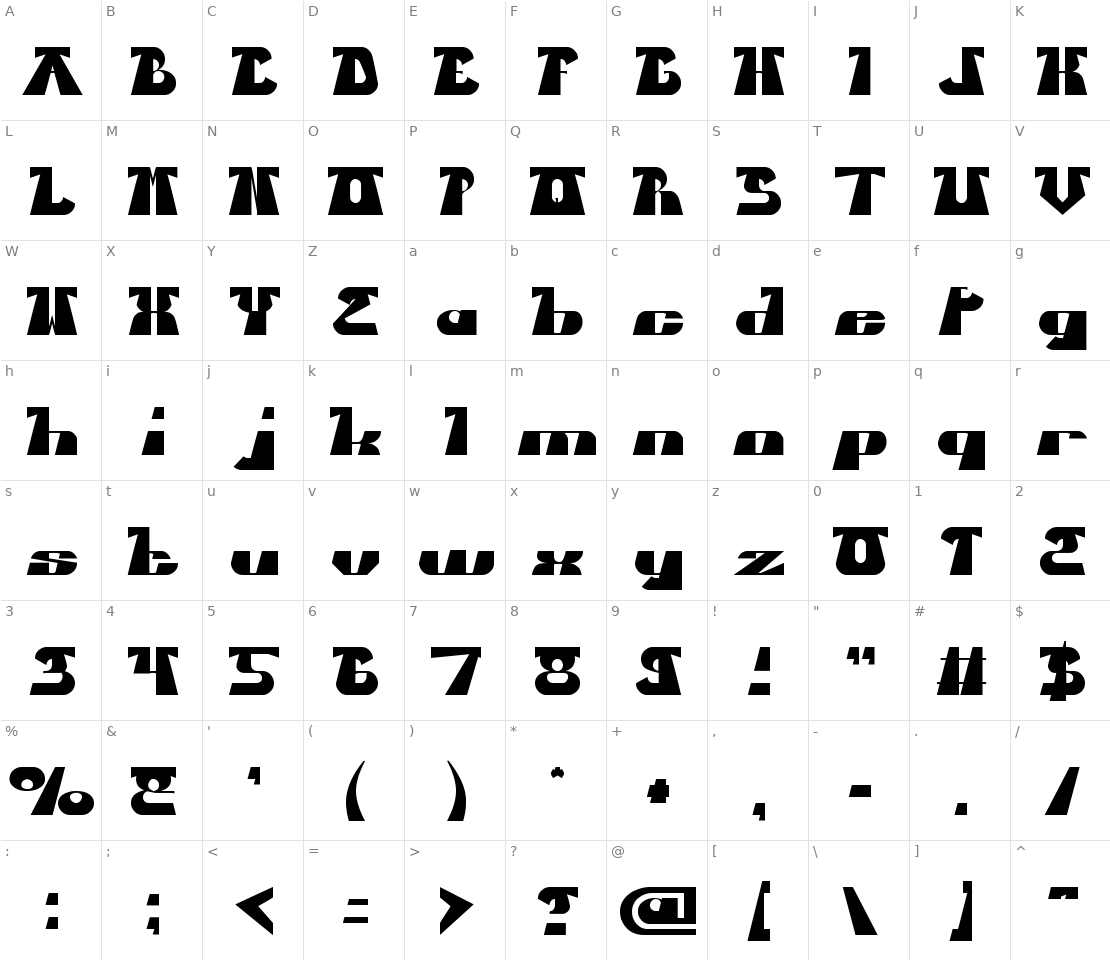
Blues Melody
Blues Melody is a bold, condensed italic display face from weknow that pulls from art deco lettering traditions while pushing the drama up with heavy strokes and a strong forward lean. The letterforms feel theatrical and vintage, like something you'd see on a jazz club marquee or a 1930s movie title card. Built for headlines and posters where you want retro glamour with real visual weight.